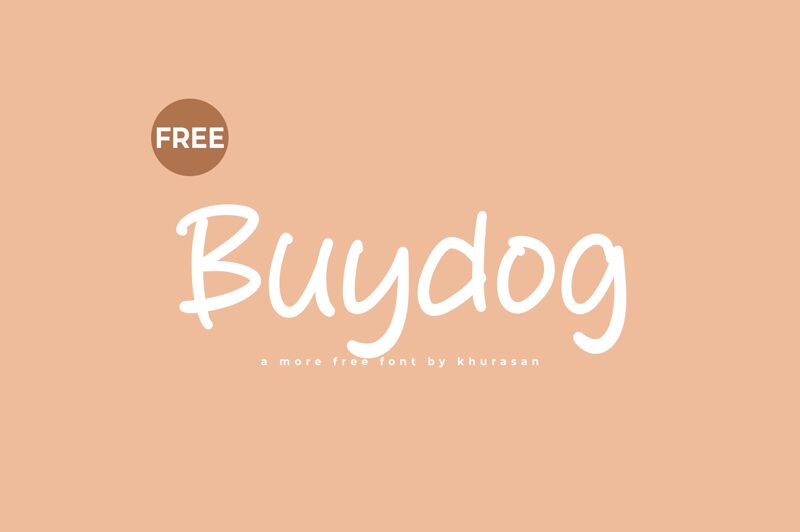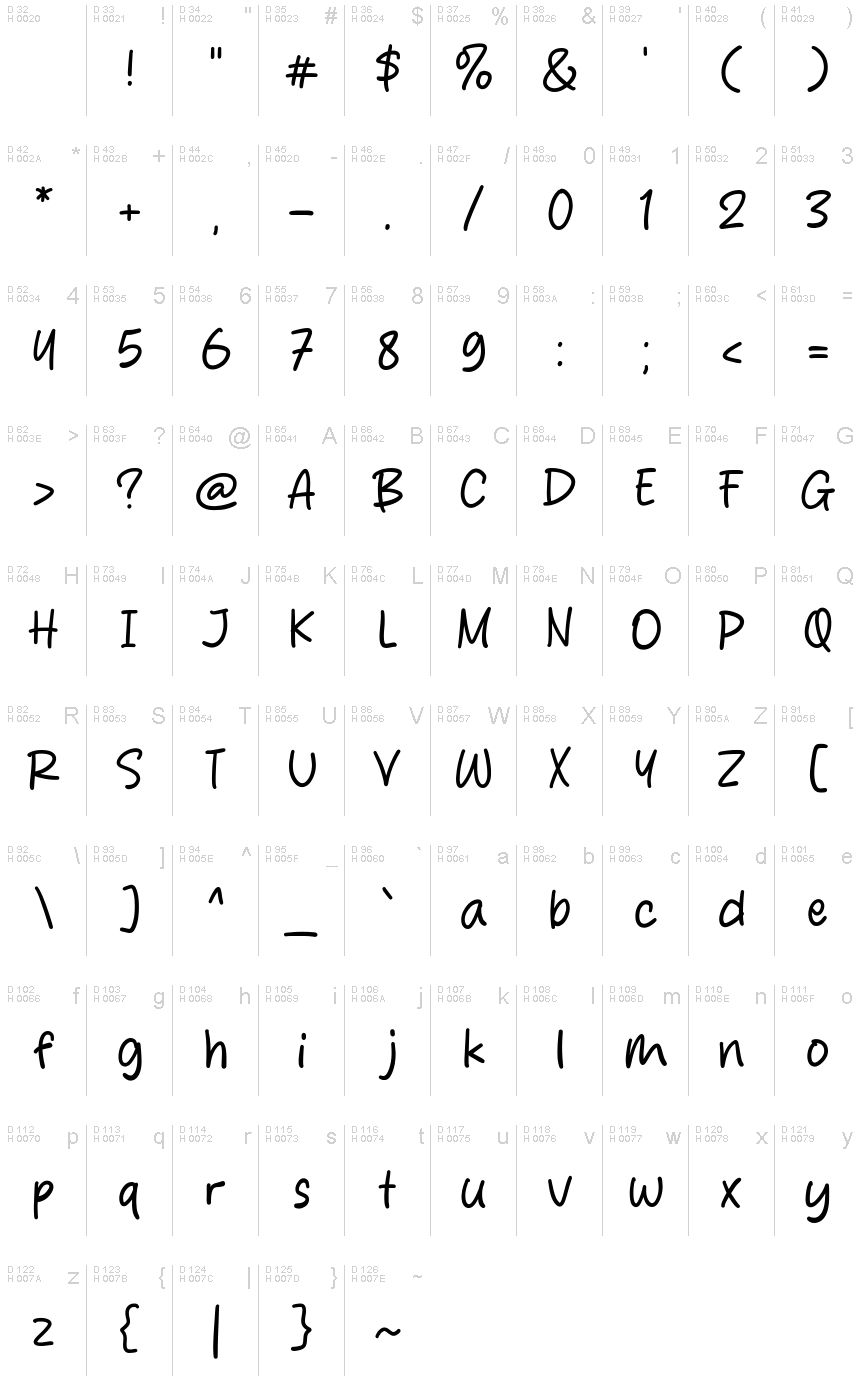
Buydog
Buydog, a captivating handwritten font crafted by Khurasan, exudes a playful and organic charm. Its free-flowing strokes and organic contours evoke a sense of warmth and individuality, making it a compelling choice for projects seeking a distinctive, handcrafted aesthetic. The font's expressive nature and natural fluidity lend themselves to a wide range of applications, from branding and packaging to editorial design and advertising.
The versatility of Buydog allows it to seamlessly blend into various design contexts, offering a versatile solution for creative professionals seeking to infuse their work with a touch of personality and authenticity. Whether adorning product labels, decorating invitations, or enhancing the visual identity of a small business, Buydog's unique character and adaptability make it a valuable asset for designers seeking to captivate their audience.